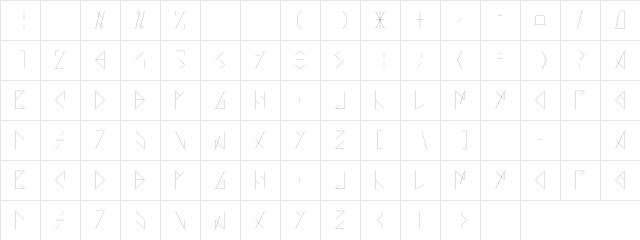
AZO - Tipografia normal
Design Context for AZO - Tipografia Typeface
AZO - Tipografia is a composed and adaptable typeface that performs quietly and consistently across a wide range of design contexts.